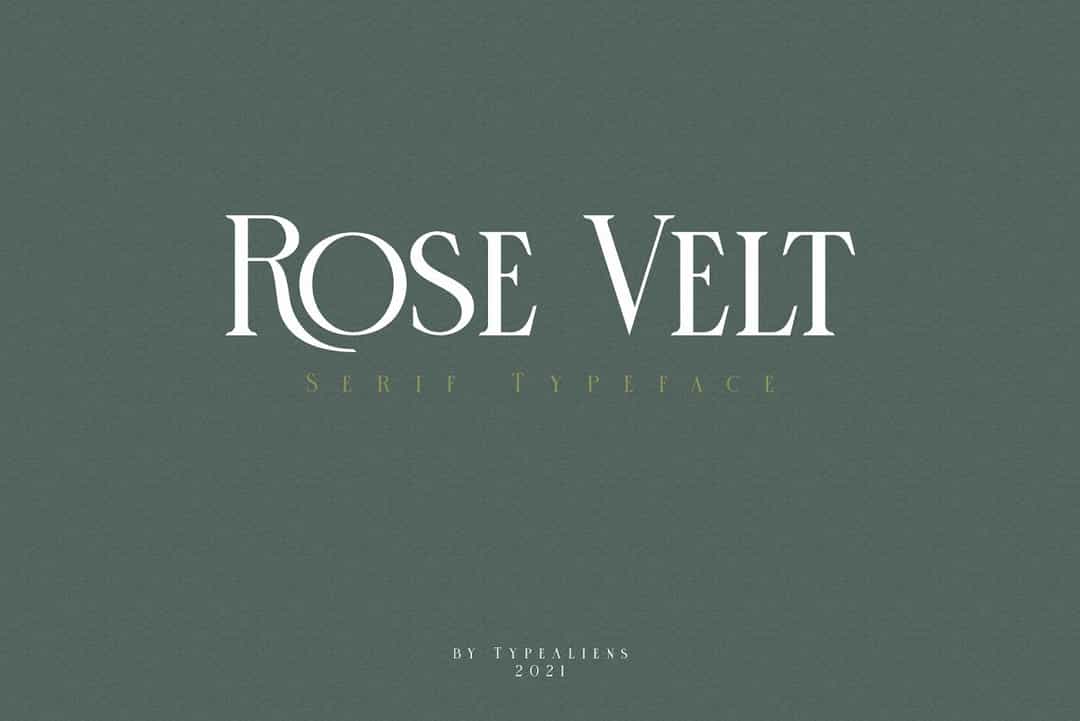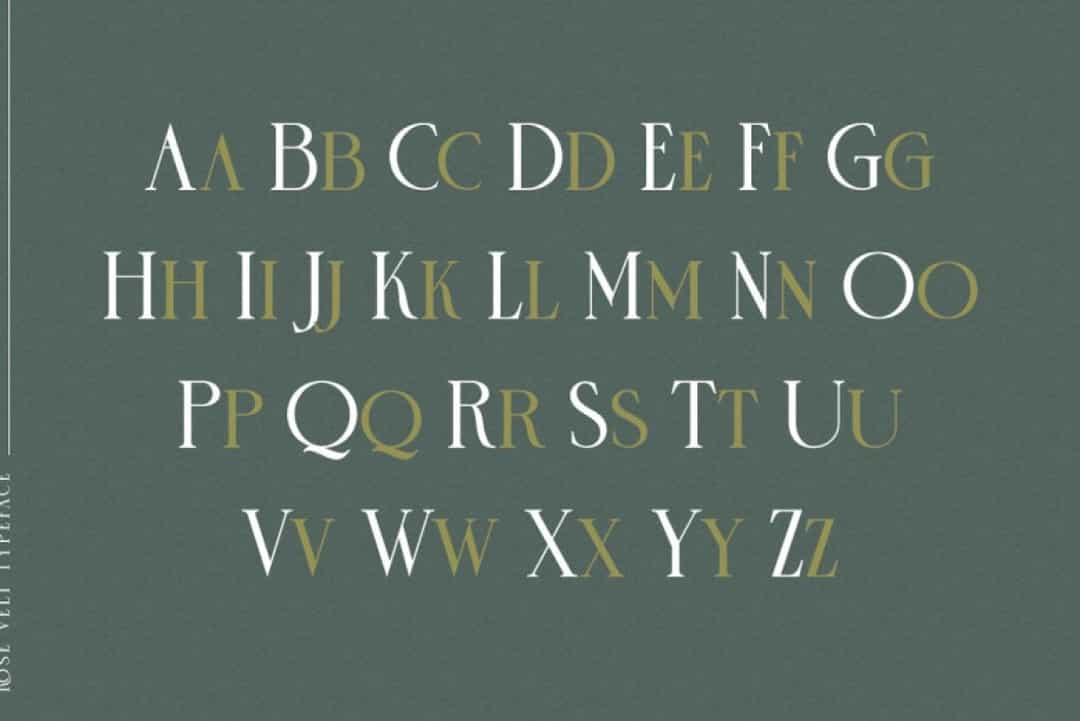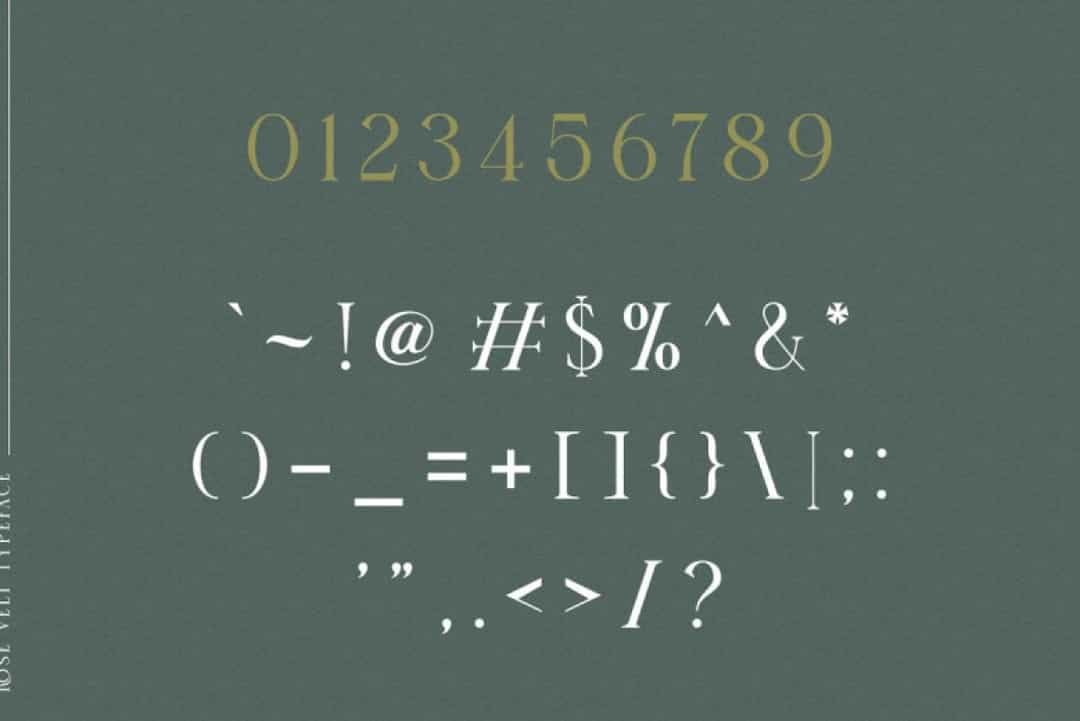
Rose Velt is an elegant vintage serif font with an understated feminine charm. Perfect for logo design and timeless designs such as poster covers, magazine covers and flyers alike – Rose Velt can easily fit into contemporary designs too.